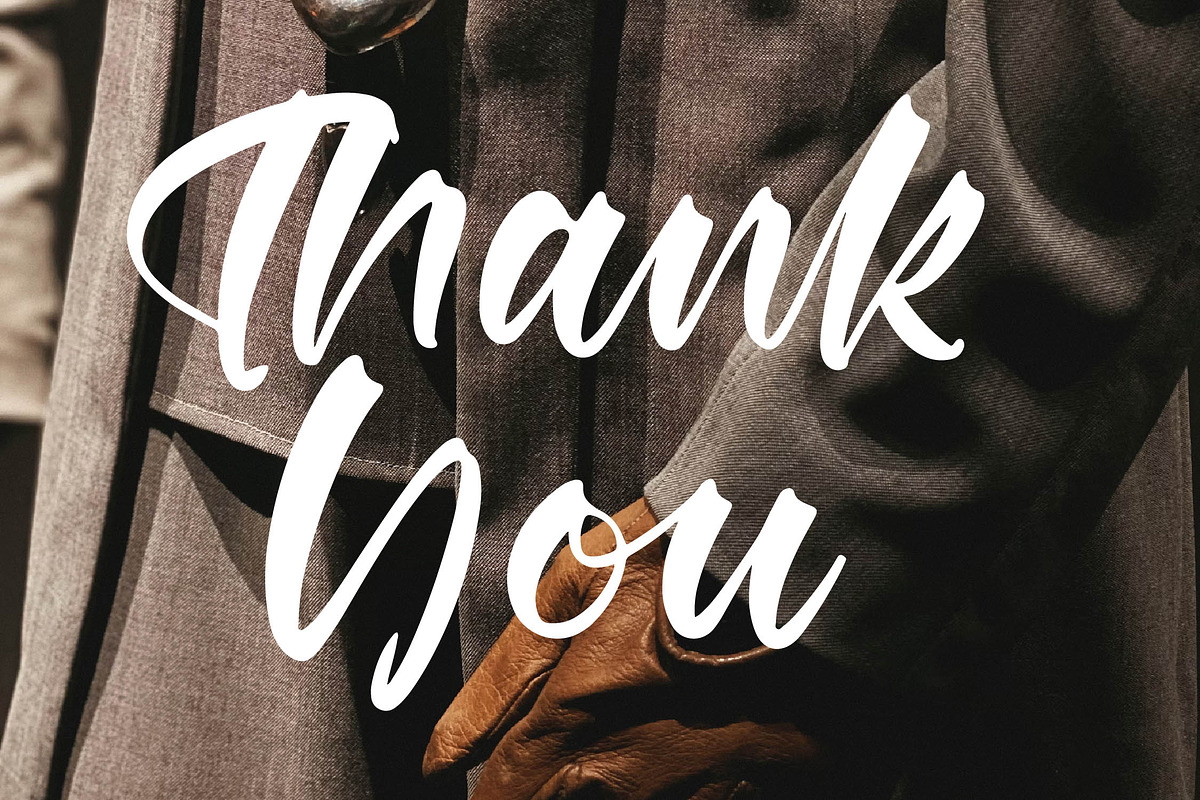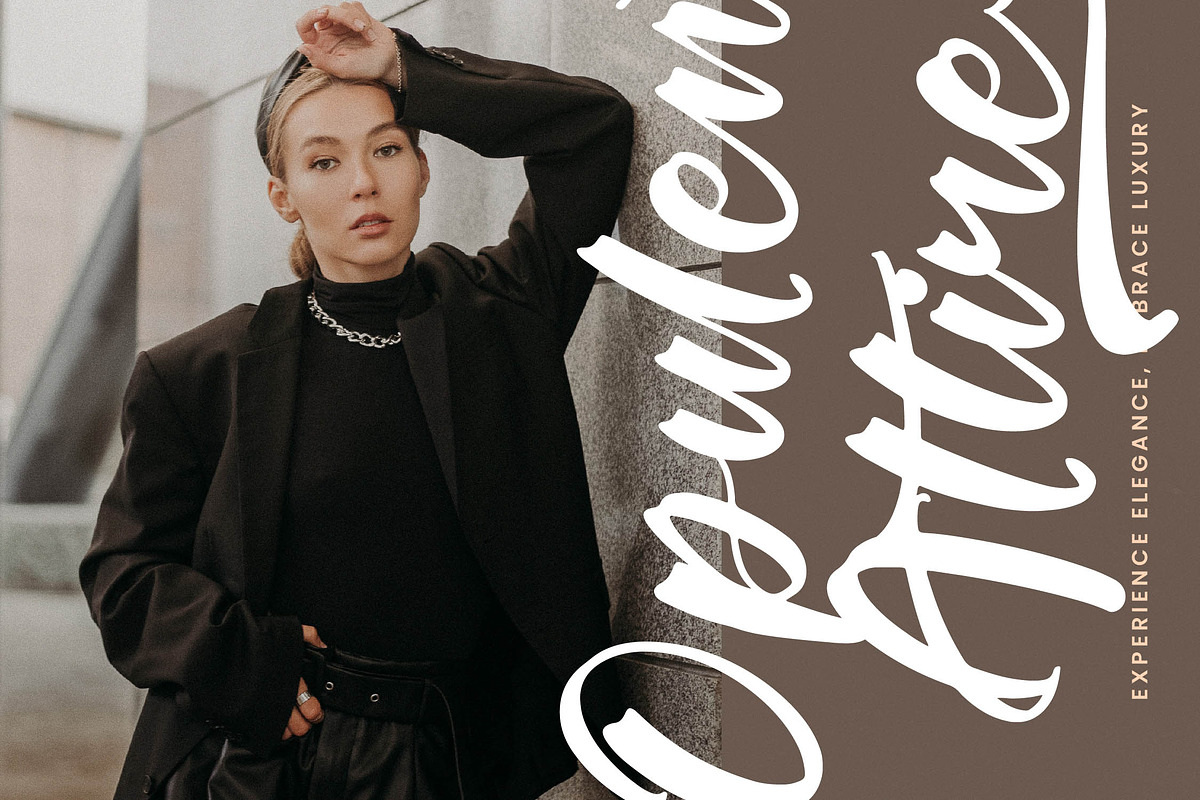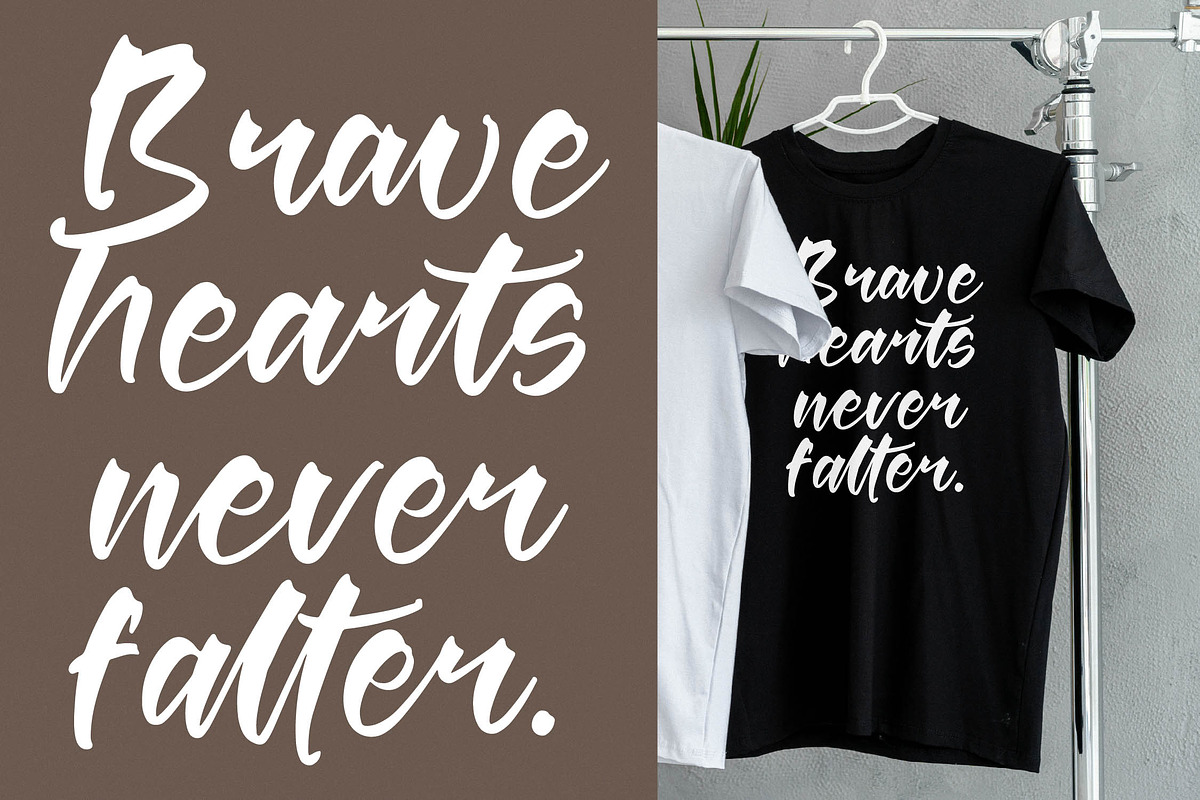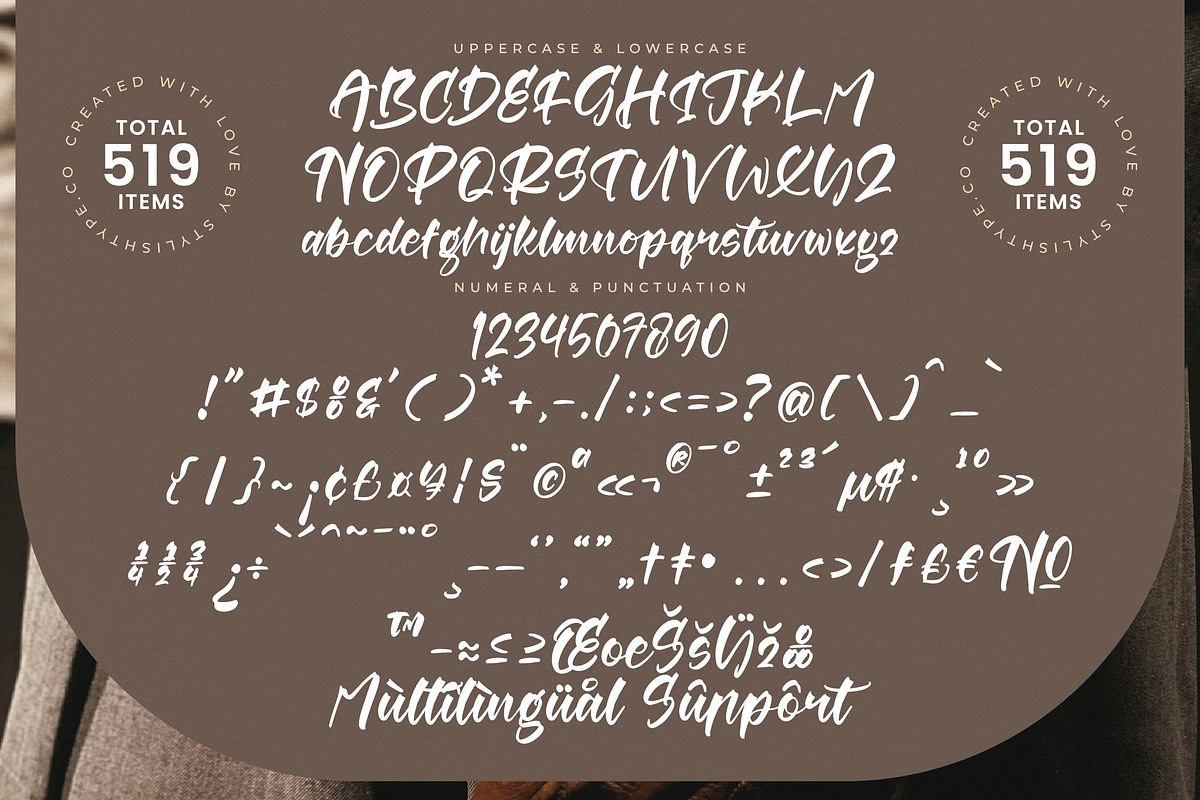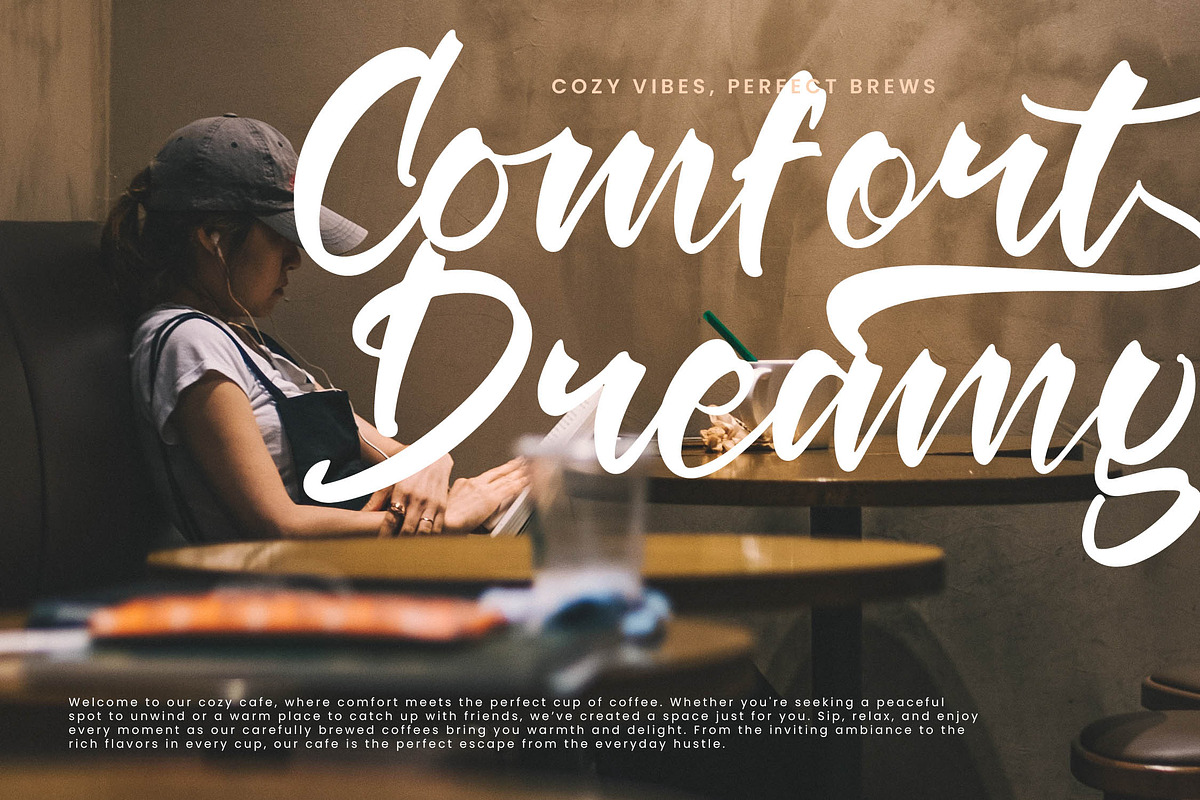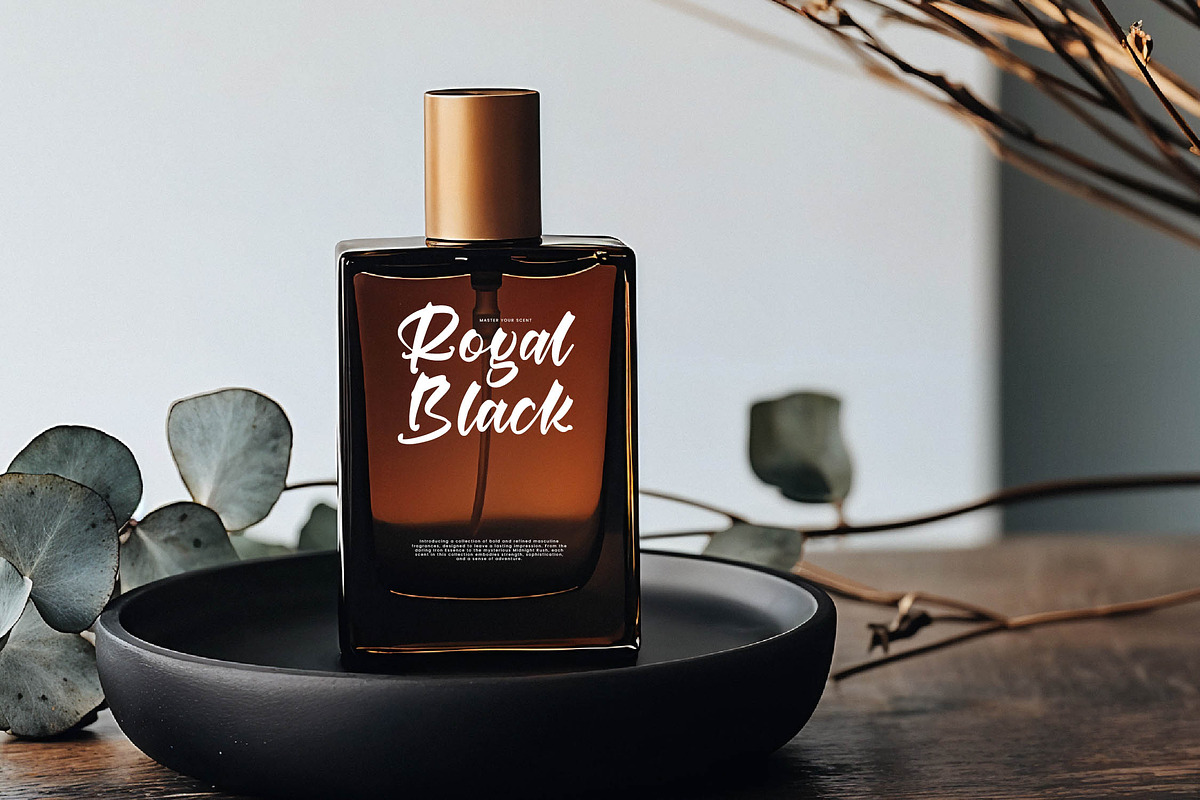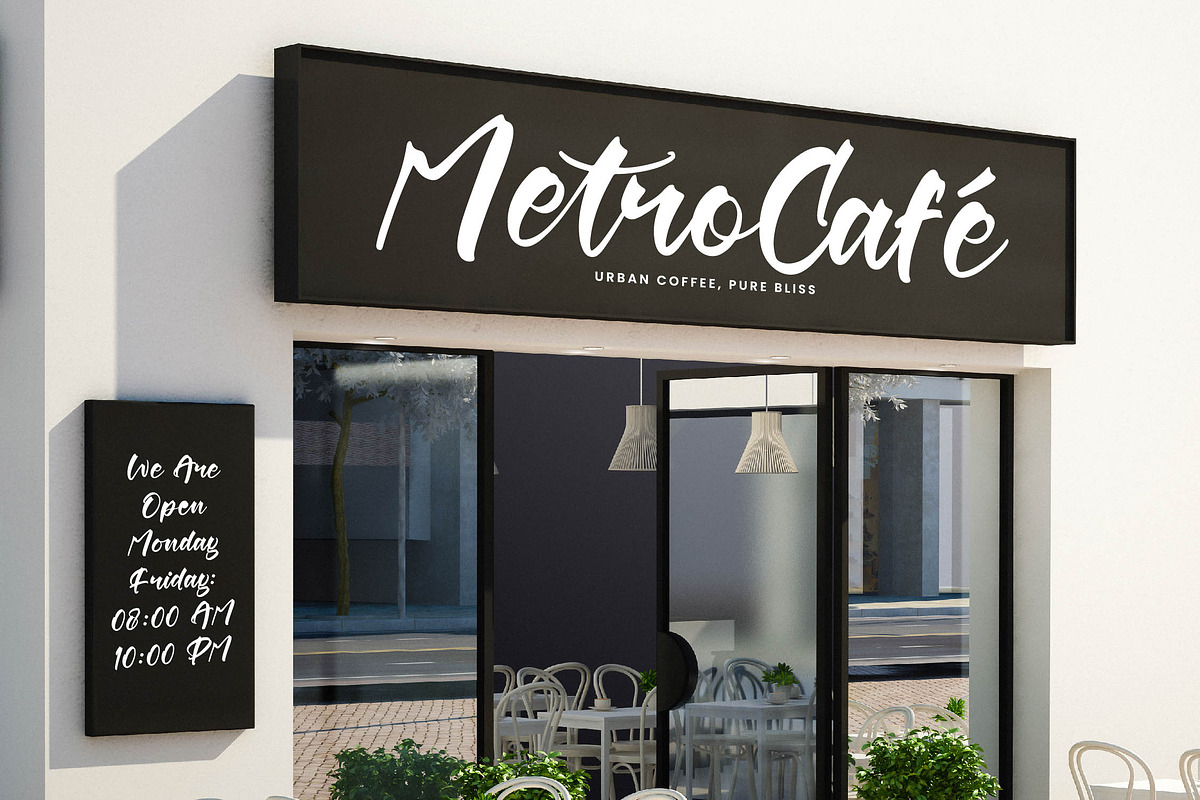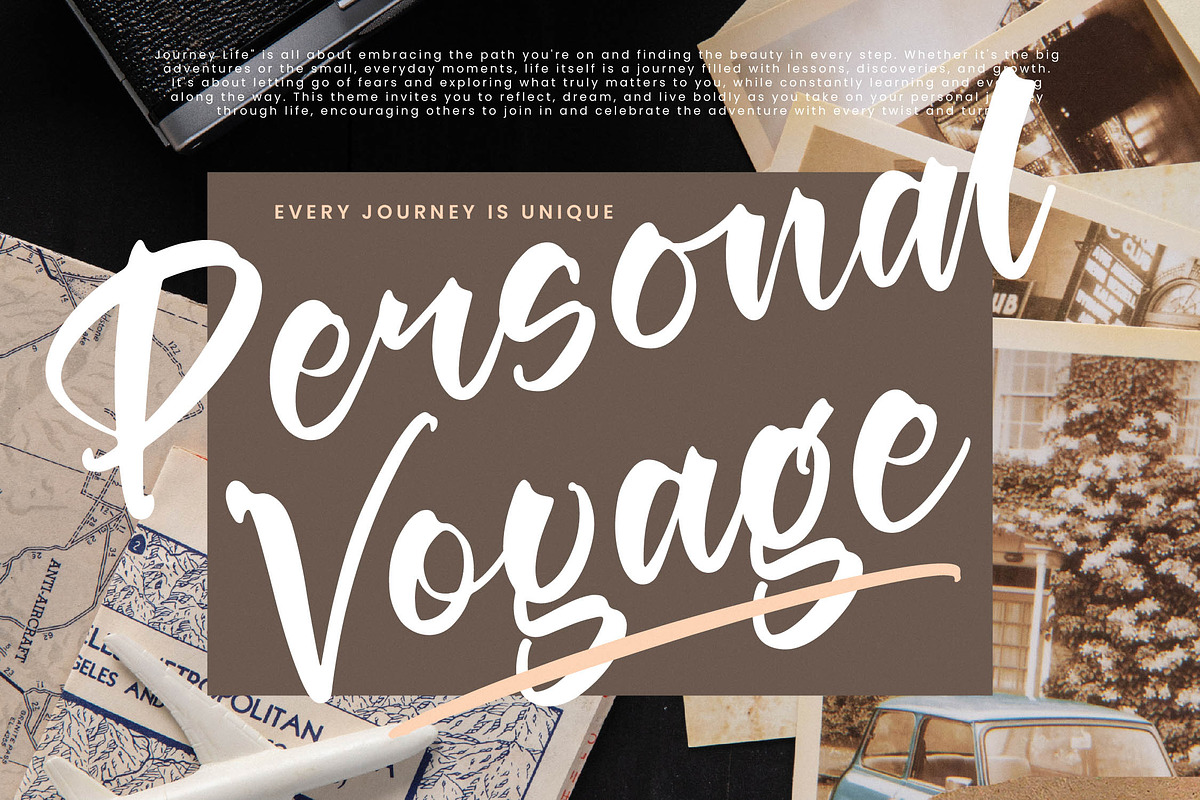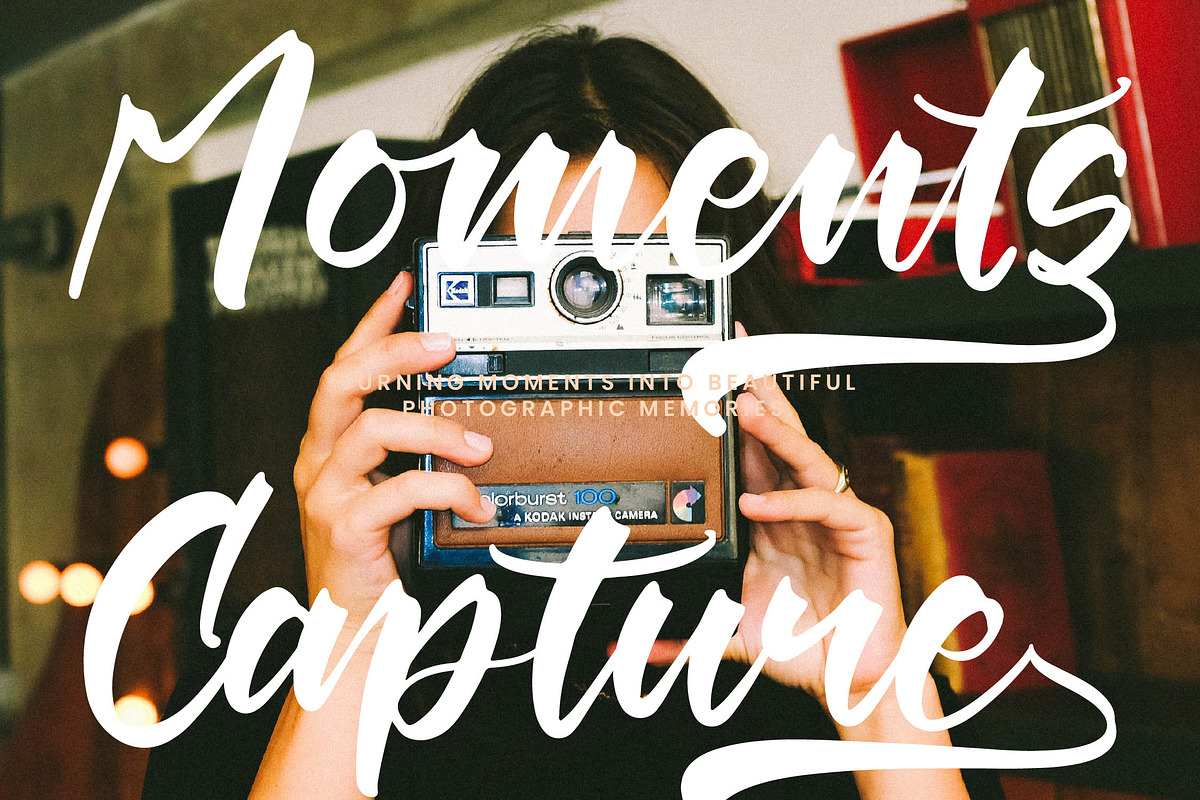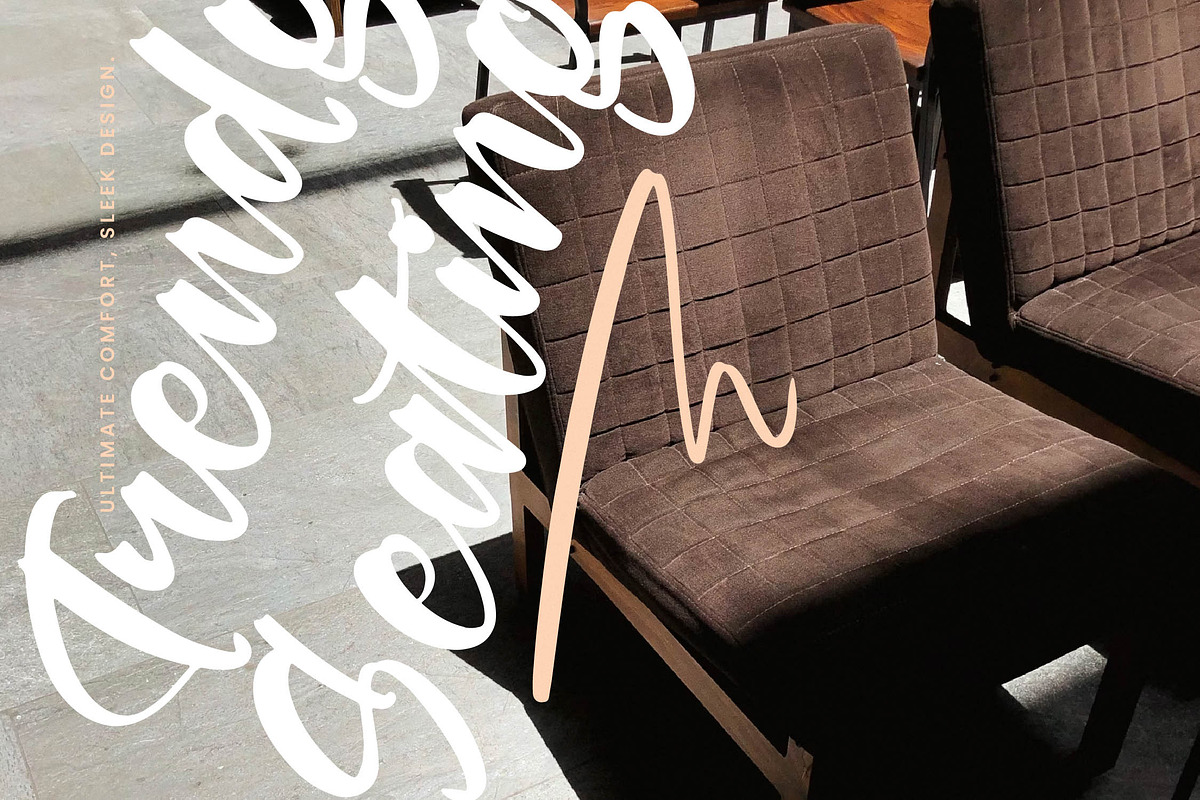
Berlin Travels Bold Calligraphy Font
Berlin Travels - Bold Calligraphy Script , from Stylishtype.Co , Suitable for any projects such as: logos, branding projects, homeware designs, product packaging, mugs, quotes, posters, shopping bags, t-shirts, book covers, name card, invitation cards, greeting cards, label, photography, watermark, special events, and all your other luxury and beautiful projects that need a Luxury Script taste.
- 129 Ligature 58 Alternates & Swashes